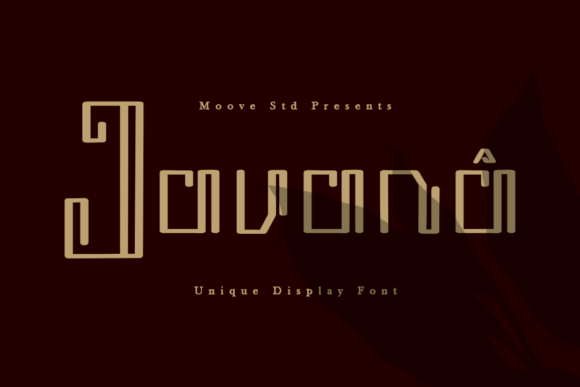
Immerse yourself in the world of art and creativity with Javana Font, the captivating display font that ignites your imagination and transforms your designs into masterpieces. Crafted by the ingenious minds at Moove Studio, this font family takes you on a visual journey, unleashing a symphony of artistic possibilities.
With its meticulously designed characters, Javana Font captures the essence of art, whispering tales of inspiration and innovation. Each letterform is a work of art in itself, reflecting a fusion of classic elegance and modern flair. This font is not just a tool; it's a muse, a companion that dances alongside your creativity, encouraging you to push boundaries and explore uncharted territories of expression.
In the realm of digital design, Javana Font is a true chameleon, adapting effortlessly to diverse projects. Whether you're weaving intricate logos, painting vibrant illustrations, or crafting elegant presentations, this font family rises to the occasion. Its versatility knows no bounds, allowing you to manifest your artistic vision across a myriad of mediums.
Javana Font's allure extends beyond the digital realm, making its mark in the physical world as well. Create stunning greeting cards that carry your heartfelt messages with a touch of artistic flair. Design posters that burst with color and imagination, captivating the eyes of all who behold them. The applications are limitless, bound only by the reaches of your creativity.
Unleash your inner artist and embark on a creative odyssey with Javana Font. Let its characters dance across your screen, igniting a spark of inspiration that sets your projects ablaze. Transform your designs into works of art, leaving your audience spellbound and craving for more.